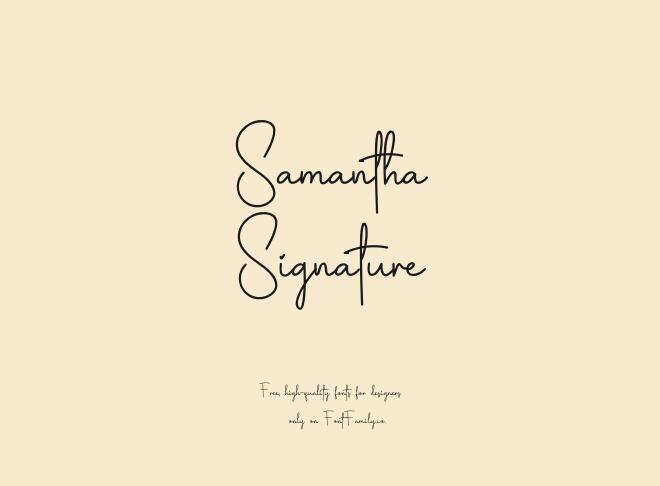
Samantha Signature Font
The Samantha Signature Font, crafted by Premier Type, is an exquisite blend of elegance and versatility. This handwritten script font showcases a unique personality, making it a standout choice for a myriad of design projects. Its graceful curves and well-balanced lines evoke a sense of sophistication, making it an ideal choice for wedding invitations, business cards, and upscale branding. Compared to other fonts, Samantha Signature offers an unparalleled level of refinement and readability. Its vast range of glyphs and alternates allows designers to create unique compositions. Despite its delicate appearance, it maintains a strong presence in any design, making it a go-to choice for those seeking to infuse their projects with a touch of elegance. Its versatility extends to a wide range of applications, from print to digital, making Samantha Signature Font a worthy addition to any designer's toolkit.